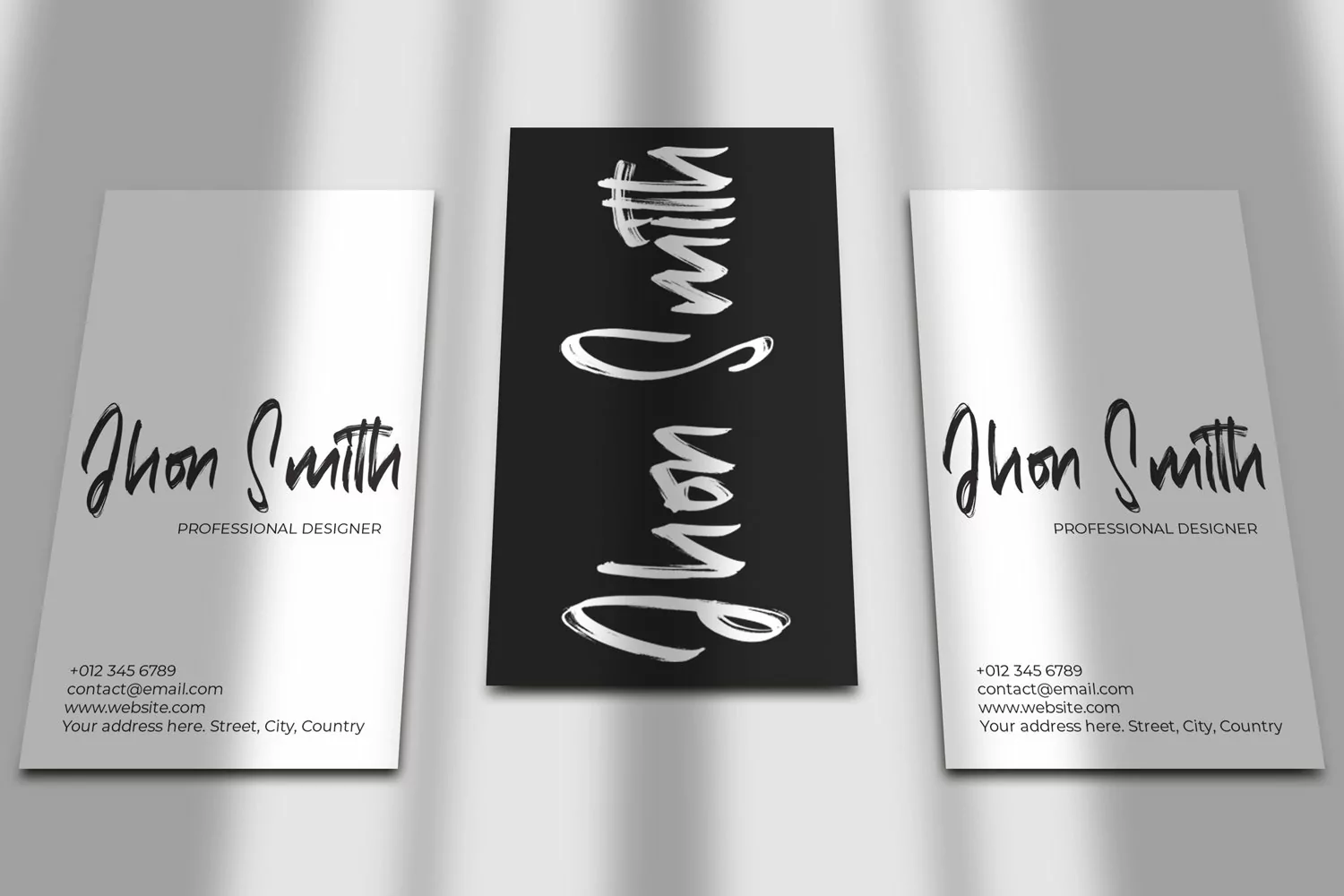
Filling Station - Brush Script Fonts that contain lowercase, uppercase, symbol, and also support multi language. There’s a lot ligatures in this font. This Font also comes with ligatures, alternates and many more. this font suitable for fashion, branding, catalog and other design what you want.
Filling Station